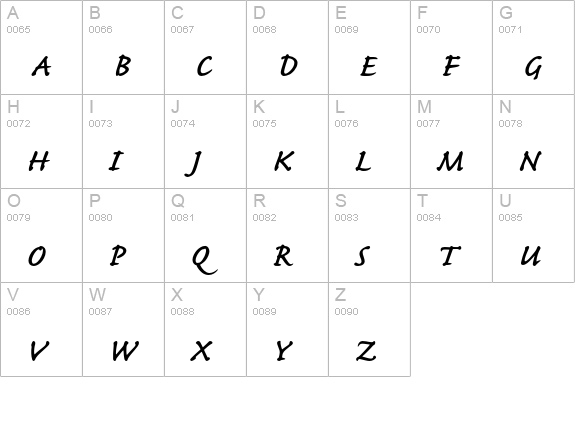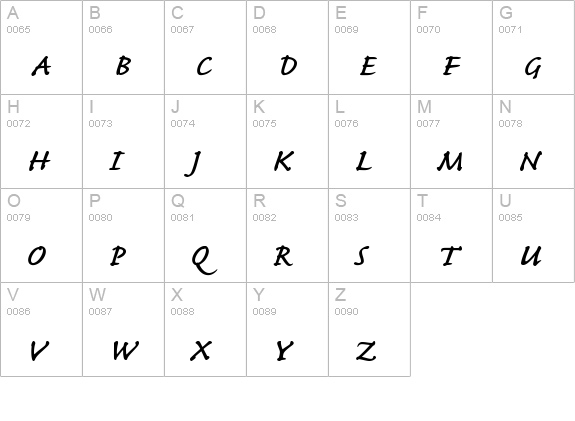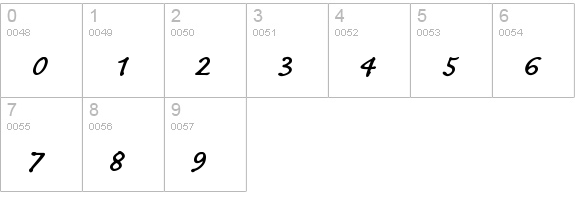
Caflisch Script Pro Semibold is a sub-bold, structured variant in the Caflisch typeface family \xE2\x80\x94 well suited to sub-headlines and emphasised passages.
Caflisch Script Pro Semibold is a beautifully crafted font that exudes elegance and sophistication. Its flowing, calligraphy-inspired strokes are bold and confident, making it the perfect choice for adding a touch of refinement to any design project. This font possesses a unique balance between traditional script styles and modern aesthetics, making it versatile for a wide range of applications. Whether used for invitations, logos, branding, or editorial designs, Caflisch Script Pro Semibold effortlessly captures attention and creates a lasting impression. With its semibold weight, this font provides a strong presence while maintaining legibility. The slightly heavier strokes give it a sense of authority without compromising its graceful curves. It strikes the perfect balance between boldness and delicacy, making it a standout choice for headlines and titles. One of the best aspects of Caflisch Script Pro Semibold is that it is freely available for download at FontsMarket.com. This means that designers and creatives can access this exceptional font without any barriers, allowing them to bring their visions to life without limitations. Its accessibility empowers designers to create stunning and impactful designs, adding a touch of sophistication and professionalism to their work. The attention to detail in Caflisch Script Pro Semibold is truly remarkable. Each letter and character is meticulously designed to ensure seamless connections and a harmonious flow throughout the text. This font is a testament to the artistry and skill of its creator, Robert Slimbach, who masterfully crafted a typeface that is both visually stunning and highly functional. In conclusion, Caflisch Script Pro Semibold is a captivating font that effortlessly combines classic elegance with contemporary design sensibilities. Its freely available download at FontsMarket.com allows designers to explore its versatility and create remarkable designs that demand attention.